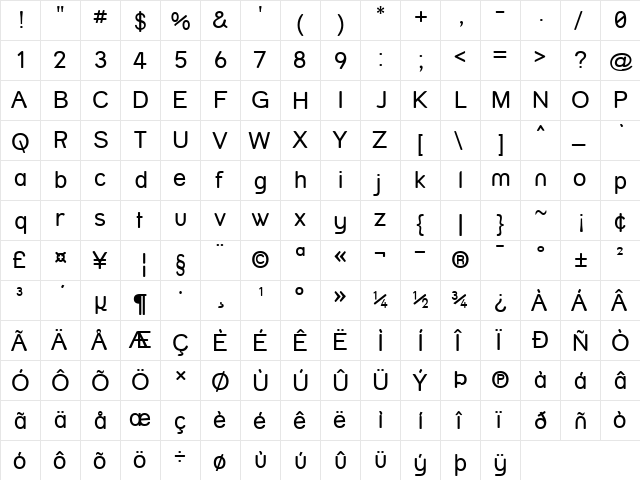
Street Variation Regular
Design Context for Street Variation Typeface
Street Variation is a composed and adaptable typeface that performs quietly and consistently across a wide range of design contexts.